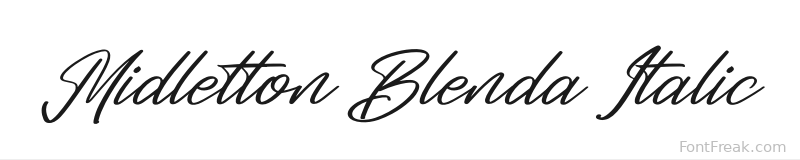
Midletton Blenda Italic
Midletton Blenda Italic is a stunning script font created by Perspectype Studio in 2021. This font falls into the category of decorative scripts, characterized by its elegant and fluid strokes. The visual style of Midletton Blenda Italic features a graceful flow with moderate stroke weight and a subtle contrast that enhances its legibility while maintaining a stylish appearance. The letters are well-spaced, allowing for easy reading, and the decorative elements, such as the sweeping ascenders and descenders, add a touch of sophistication.
This font is particularly well-suited for a variety of creative applications. It shines in wedding invitations, where its romantic flair can beautifully convey heartfelt messages. Additionally, Midletton Blenda Italic is an excellent choice for movie posters, adding a cinematic elegance that captures attention. Restaurant menus can also benefit from its stylish charm, making dishes appear more appealing. Content creators looking to enhance their branding will find this font ideal for logos and social media graphics, as it effortlessly communicates a sense of creativity and personality.
The target audience for Midletton Blenda Italic includes graphic designers seeking unique typefaces for their projects, small business owners wanting to elevate their marketing materials, and content creators in need of an eye-catching font for digital content. By offering a free download, this font becomes accessible to anyone looking to add a touch of elegance to their designs.
What sets Midletton Blenda Italic apart is its perfect balance of elegance and readability, making it a versatile choice for numerous design applications. Whether you're crafting invitations or enhancing digital content, this font brings a refined aesthetic that is sure to impress. Don't miss out on the opportunity to access the Midletton Blenda Italic font free download and elevate your creative projects today.